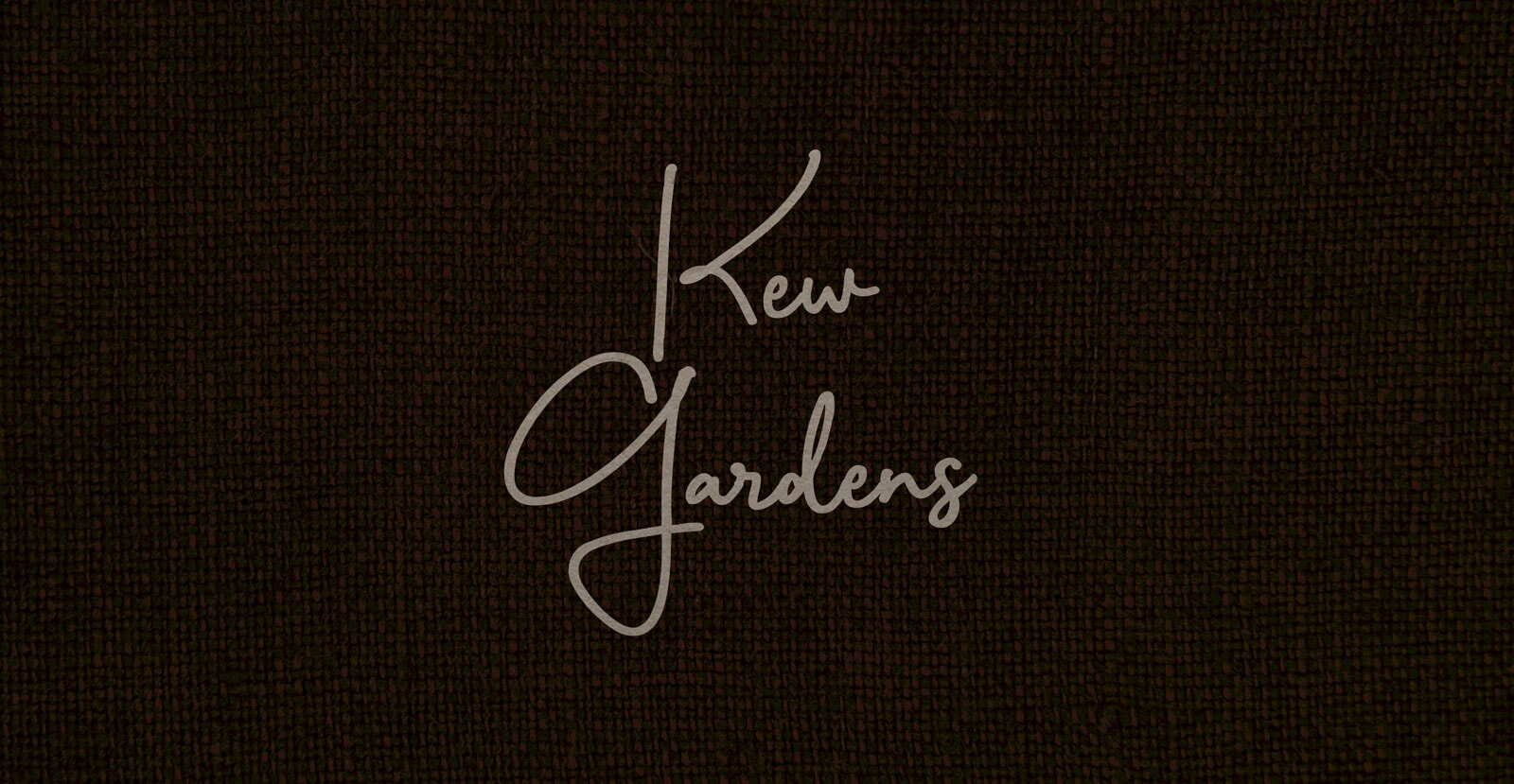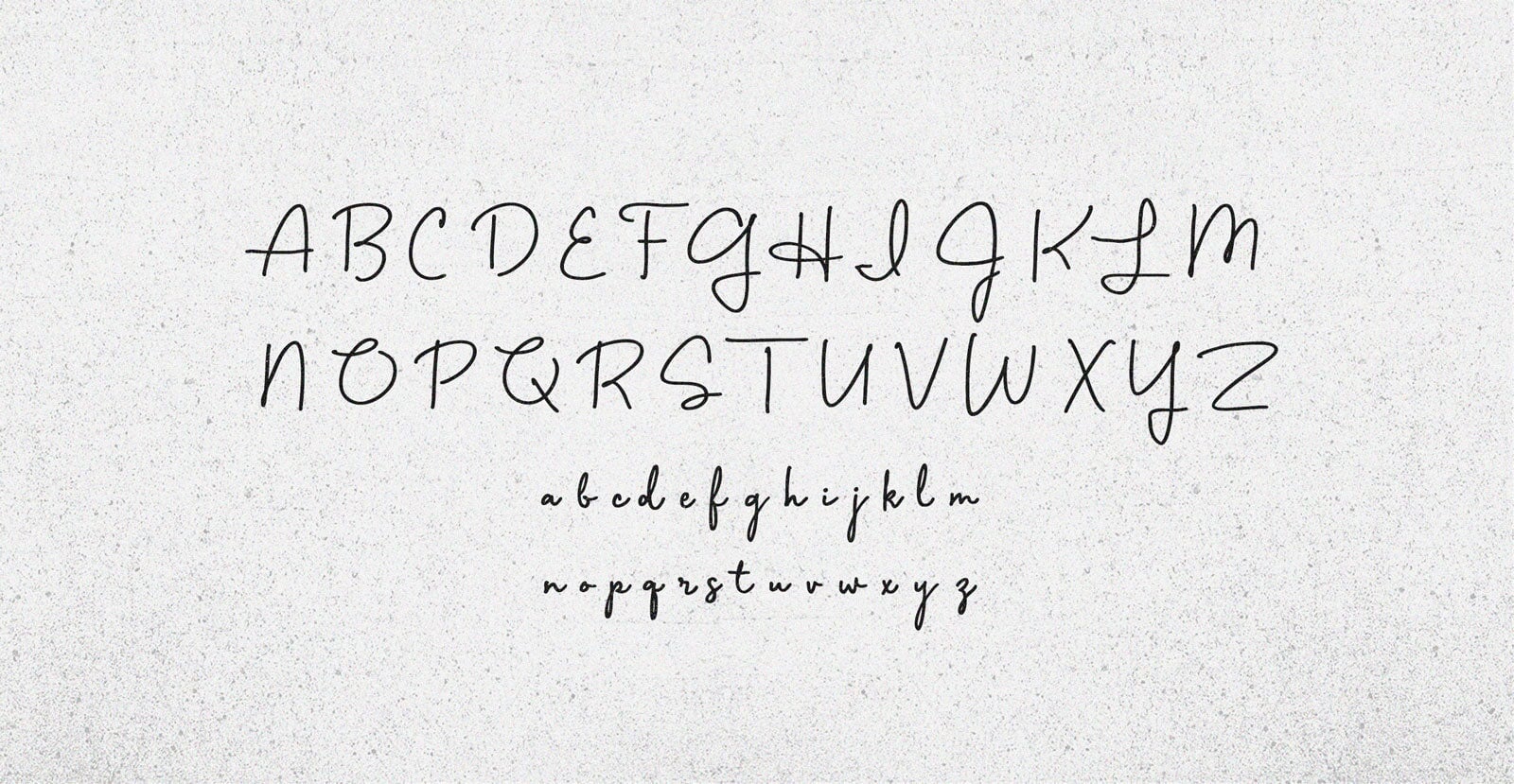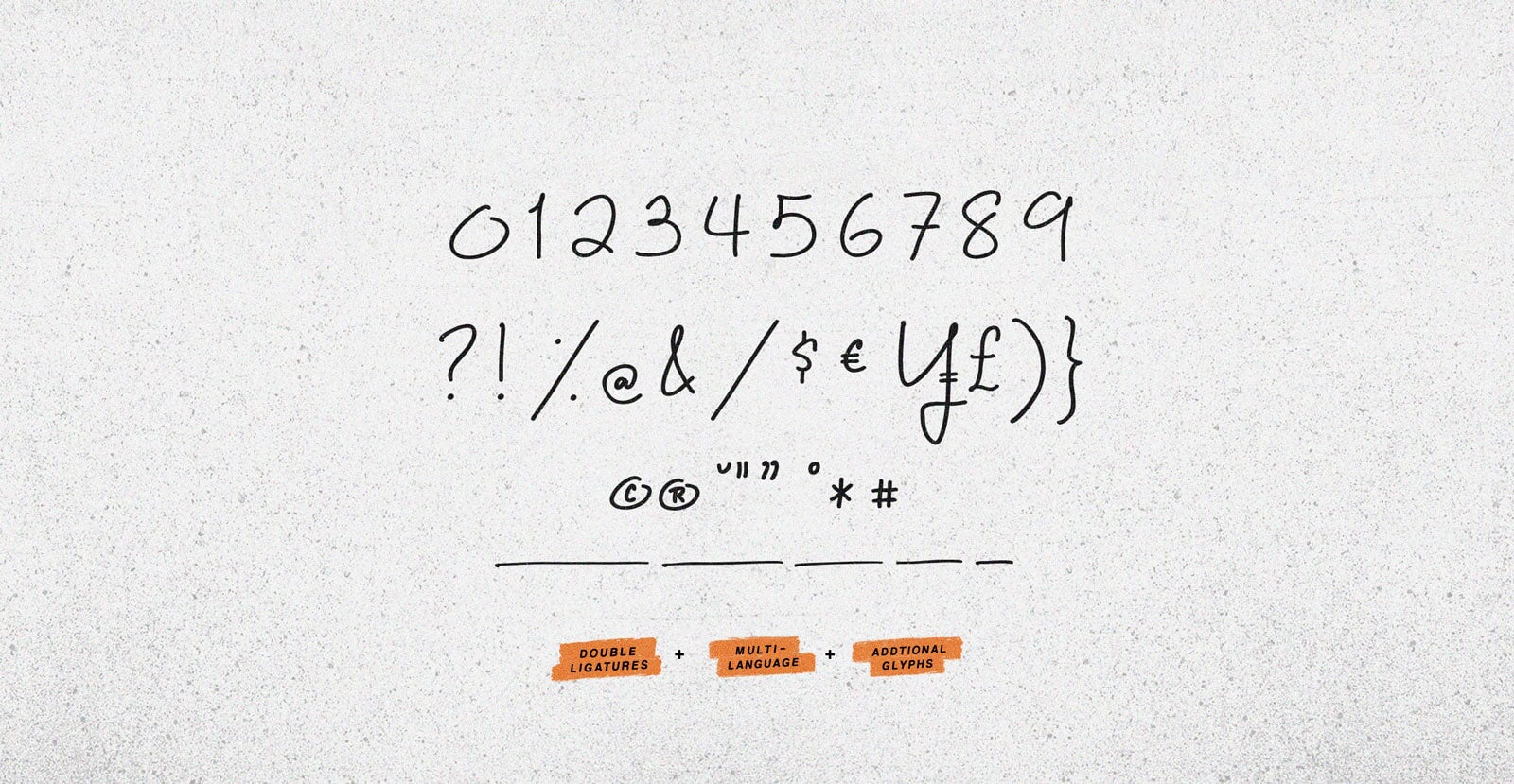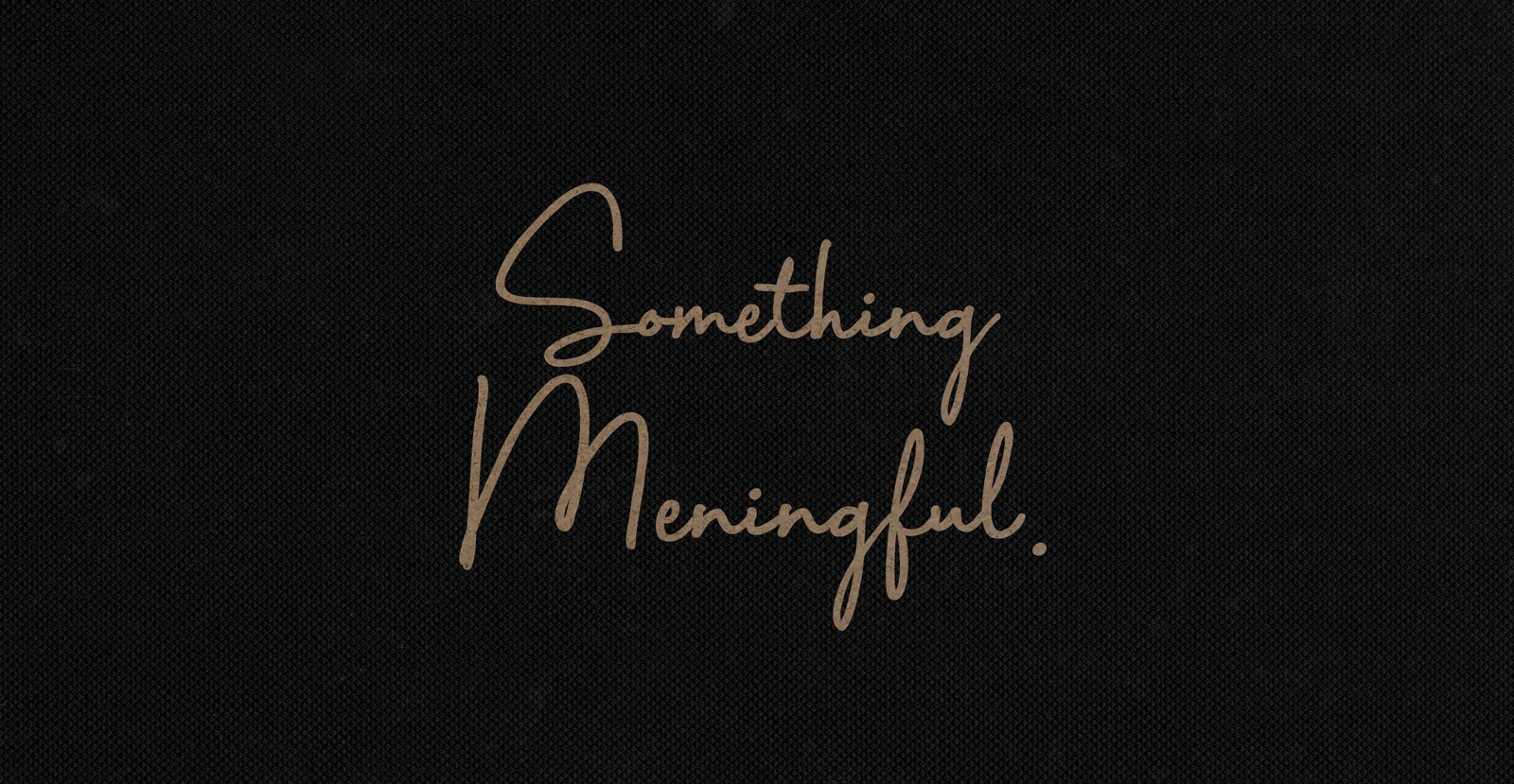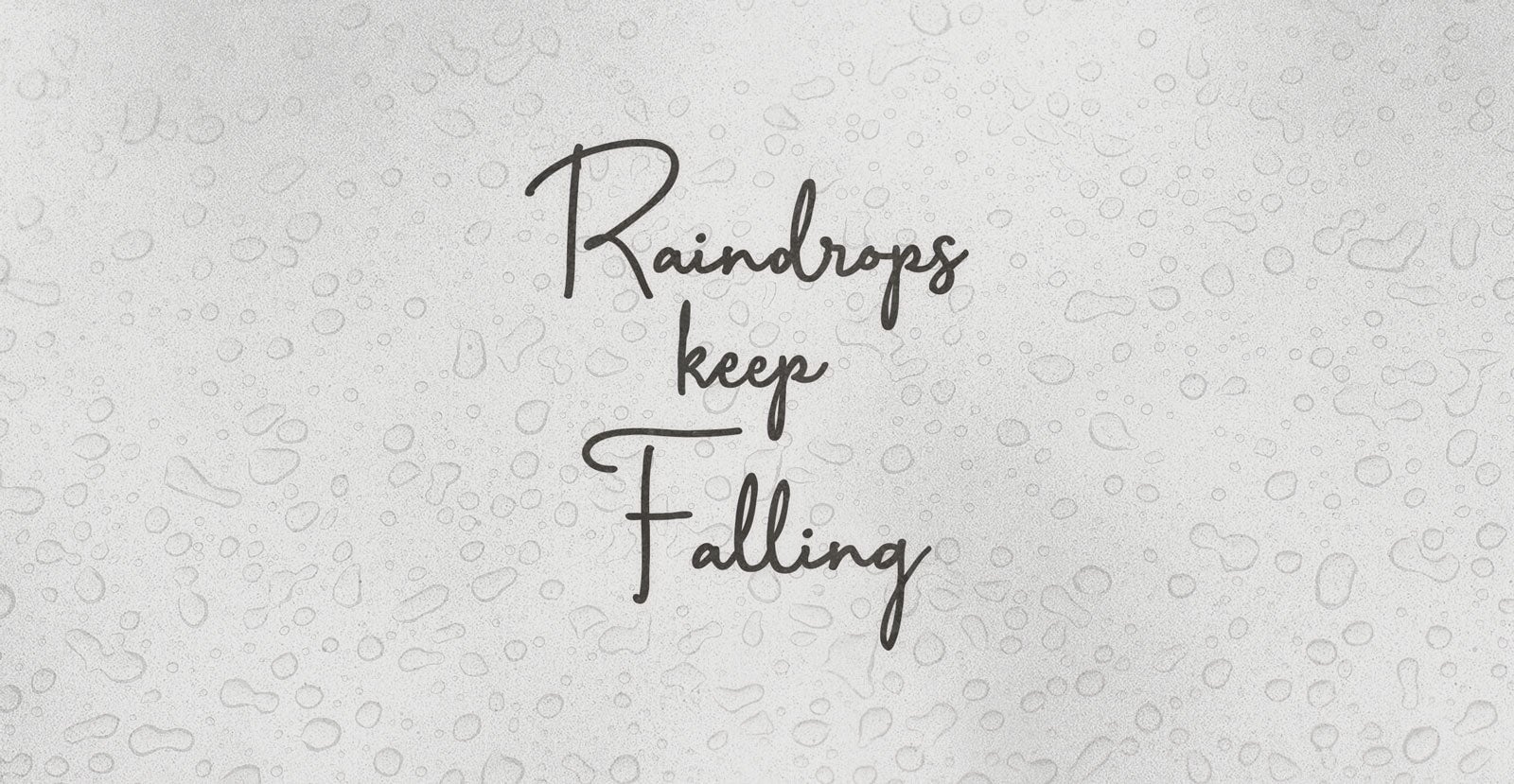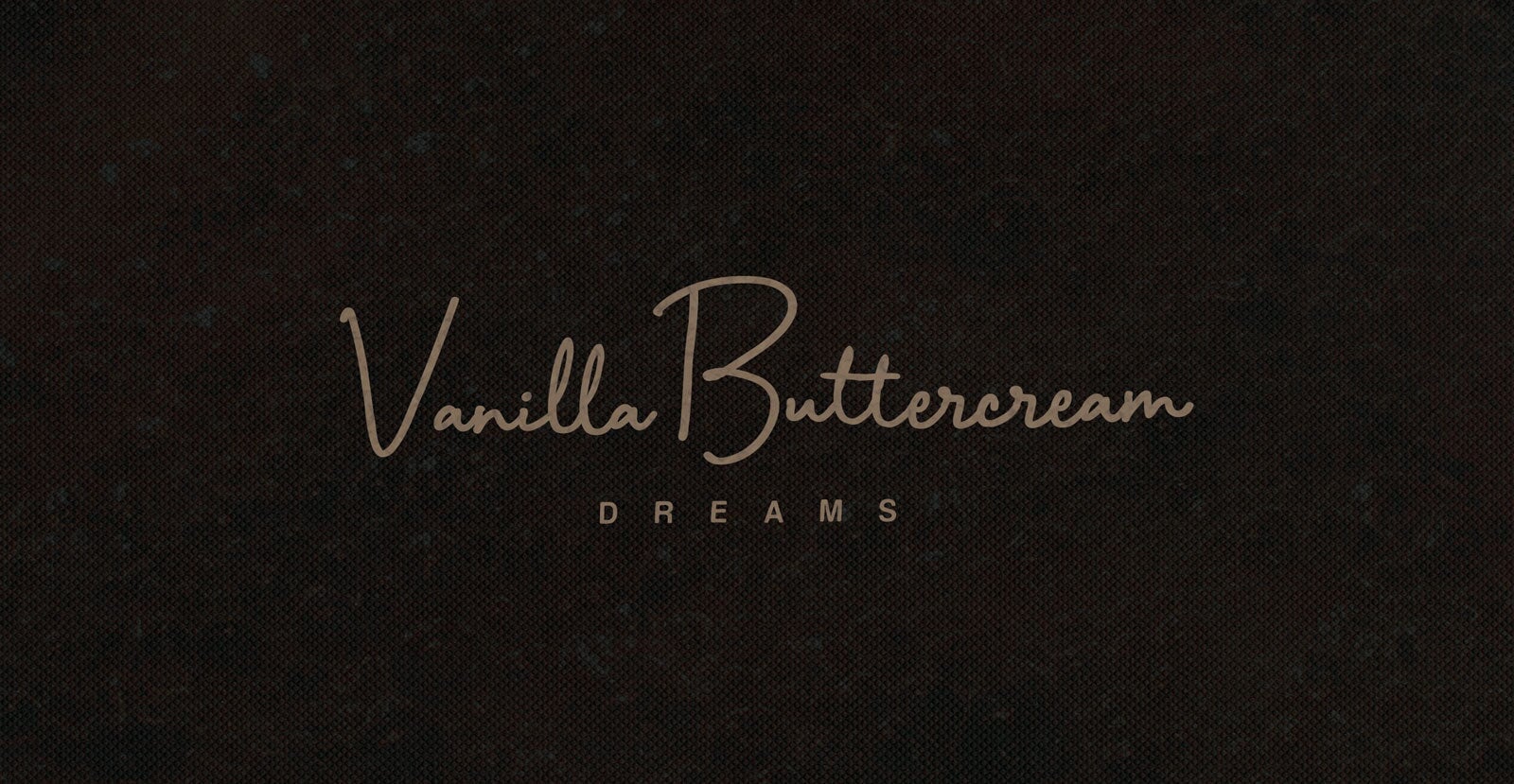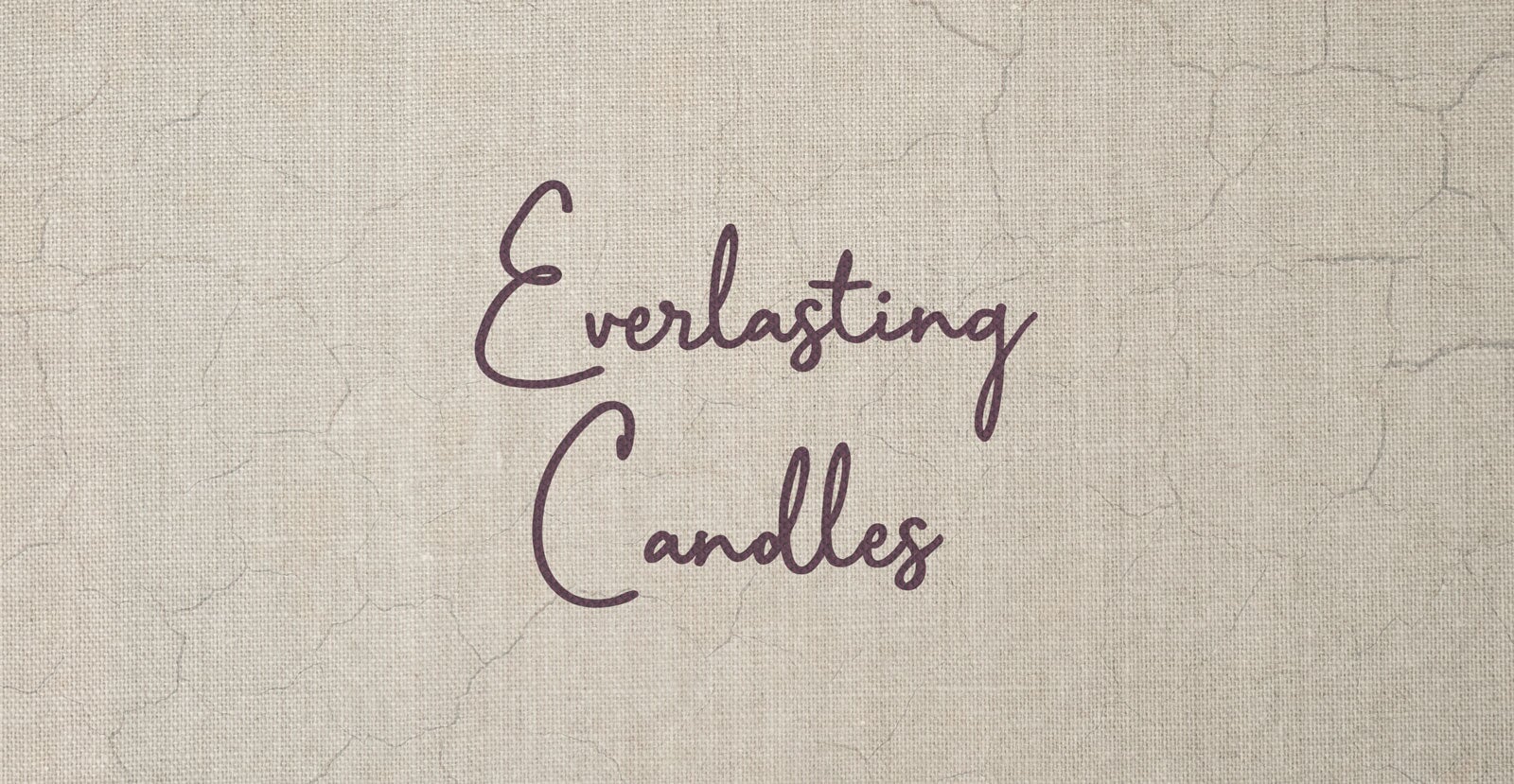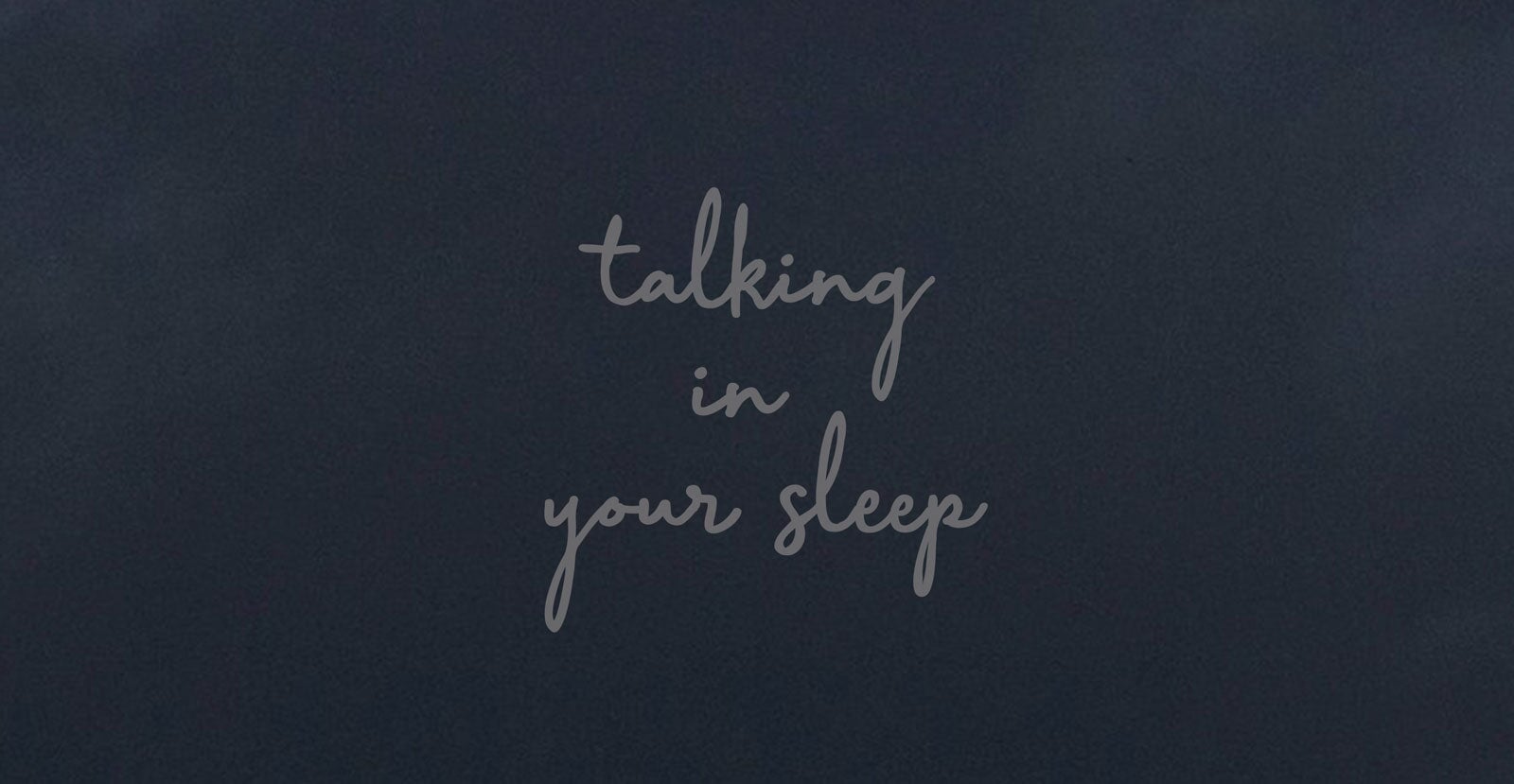
Kew Gardens
Handwritten Pen Script Font
Kew Gardens unfolds like a quiet ritual—organic, detailed, and gently composed. It carries the patience of growth and the elegance of things carefully arranged. Less about showing off, more about drawing you in.